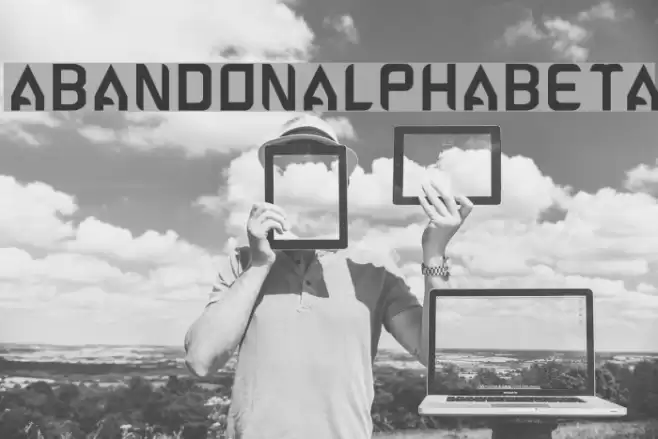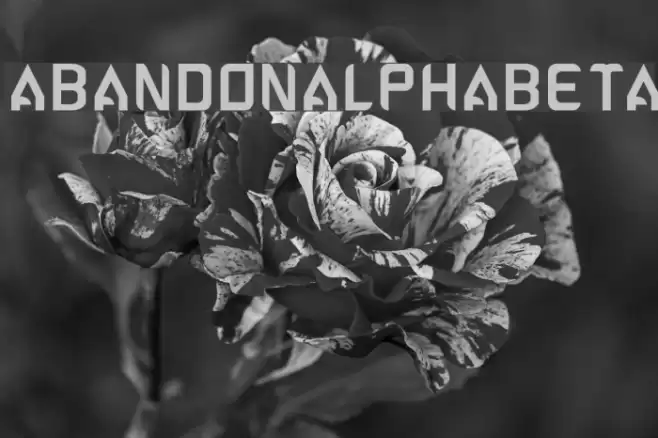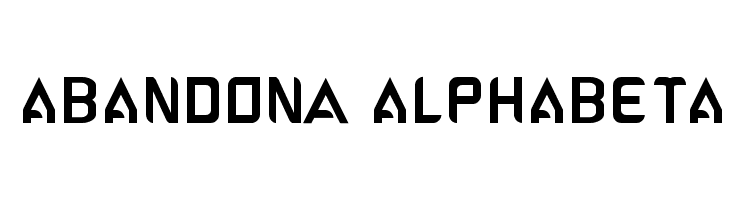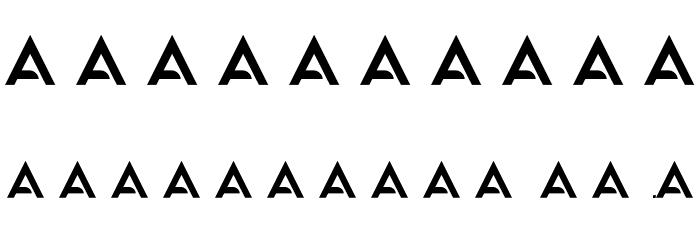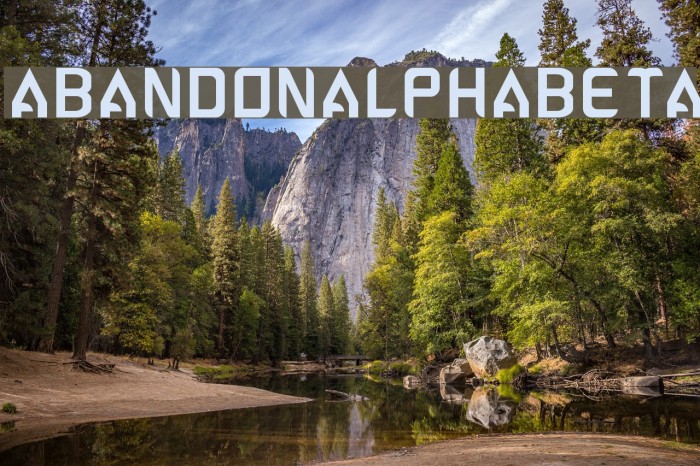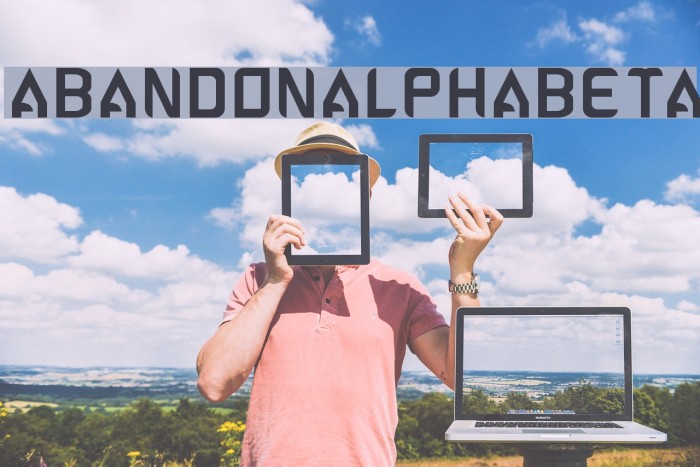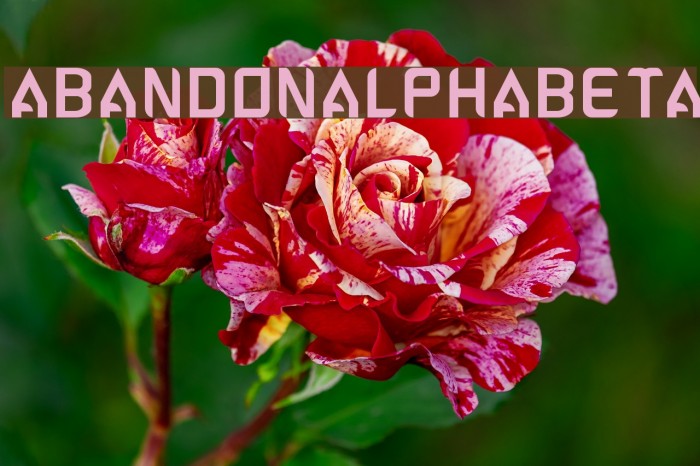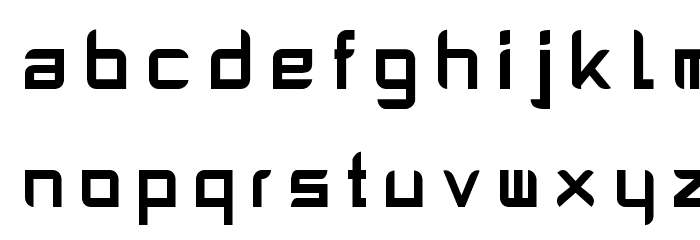
ABANDON-ALPHABETA Font
ABANDON-ALPHABETA Description
This font features a bold and geometric design, characterized by sharp angles and a futuristic aesthetic. The uppercase letters are particularly striking, with a blocky and robust appearance that commands attention. The lowercase letters maintain the geometric theme, offering a cohesive look across the typeface. The numerals and special characters are designed to match the overall style, ensuring consistency in any application. This font's unique style makes it suitable for modern and tech-oriented projects, where a strong visual impact is desired.
A bold, geometric font with a futuristic and angular design from Uncategorized fonts.
- Proposed Projects: Ideal for tech branding, video game titles, and modern advertising campaigns.